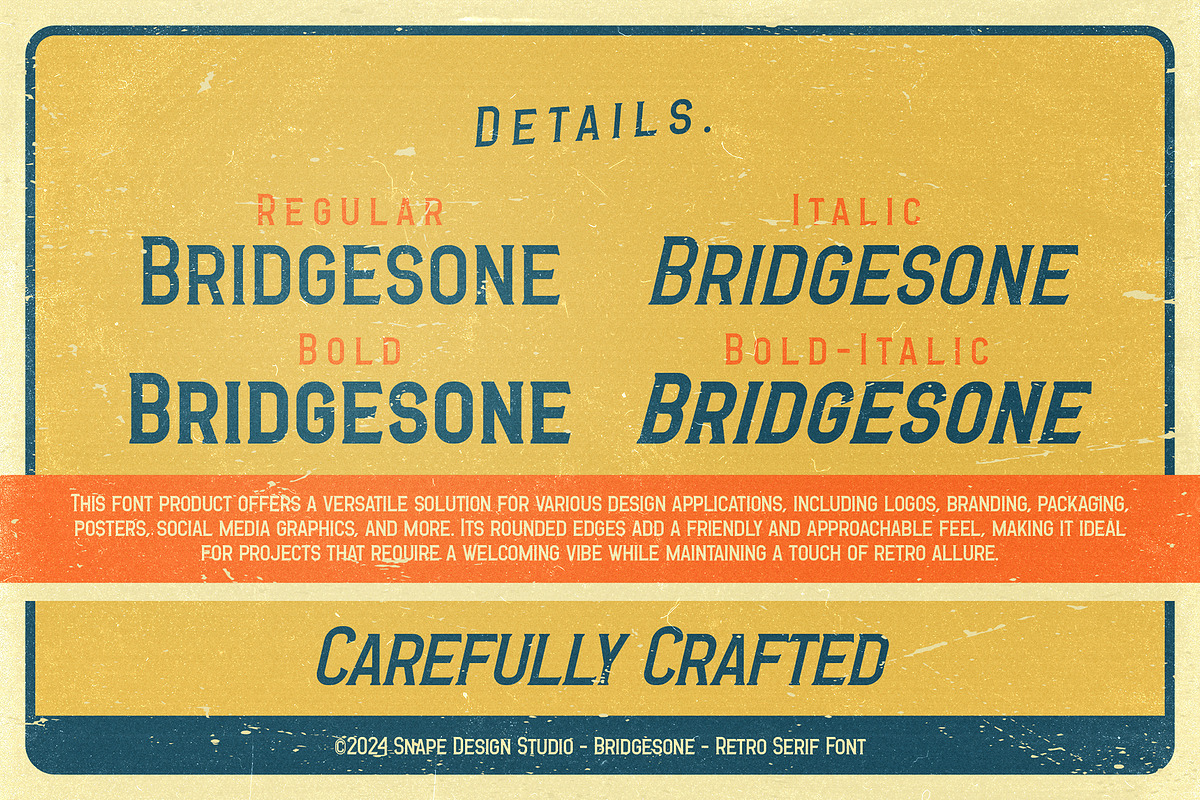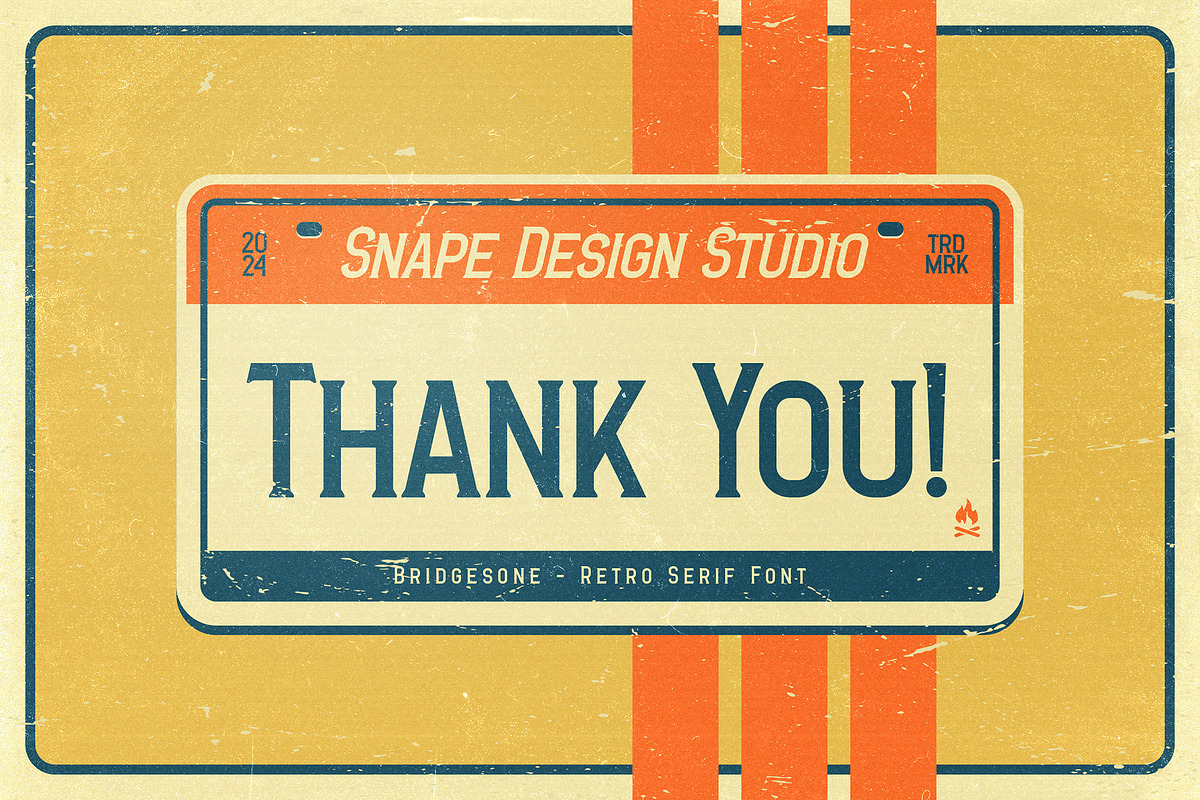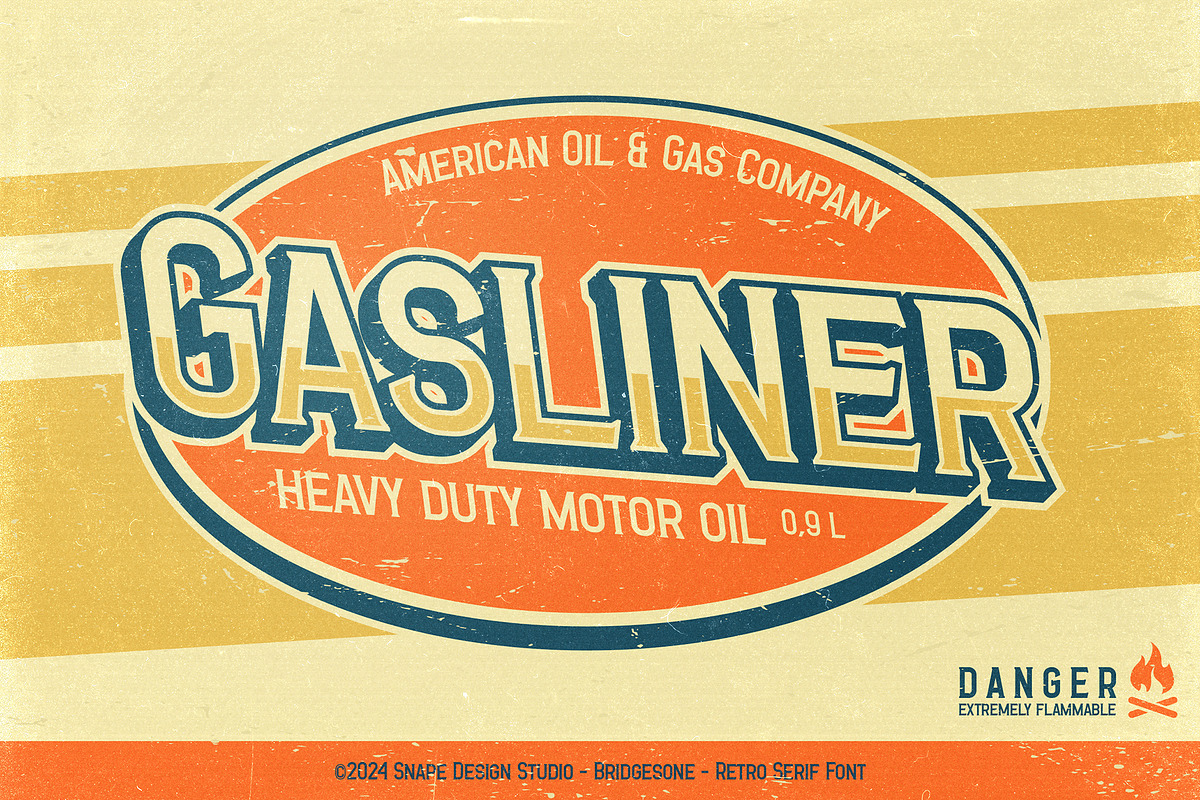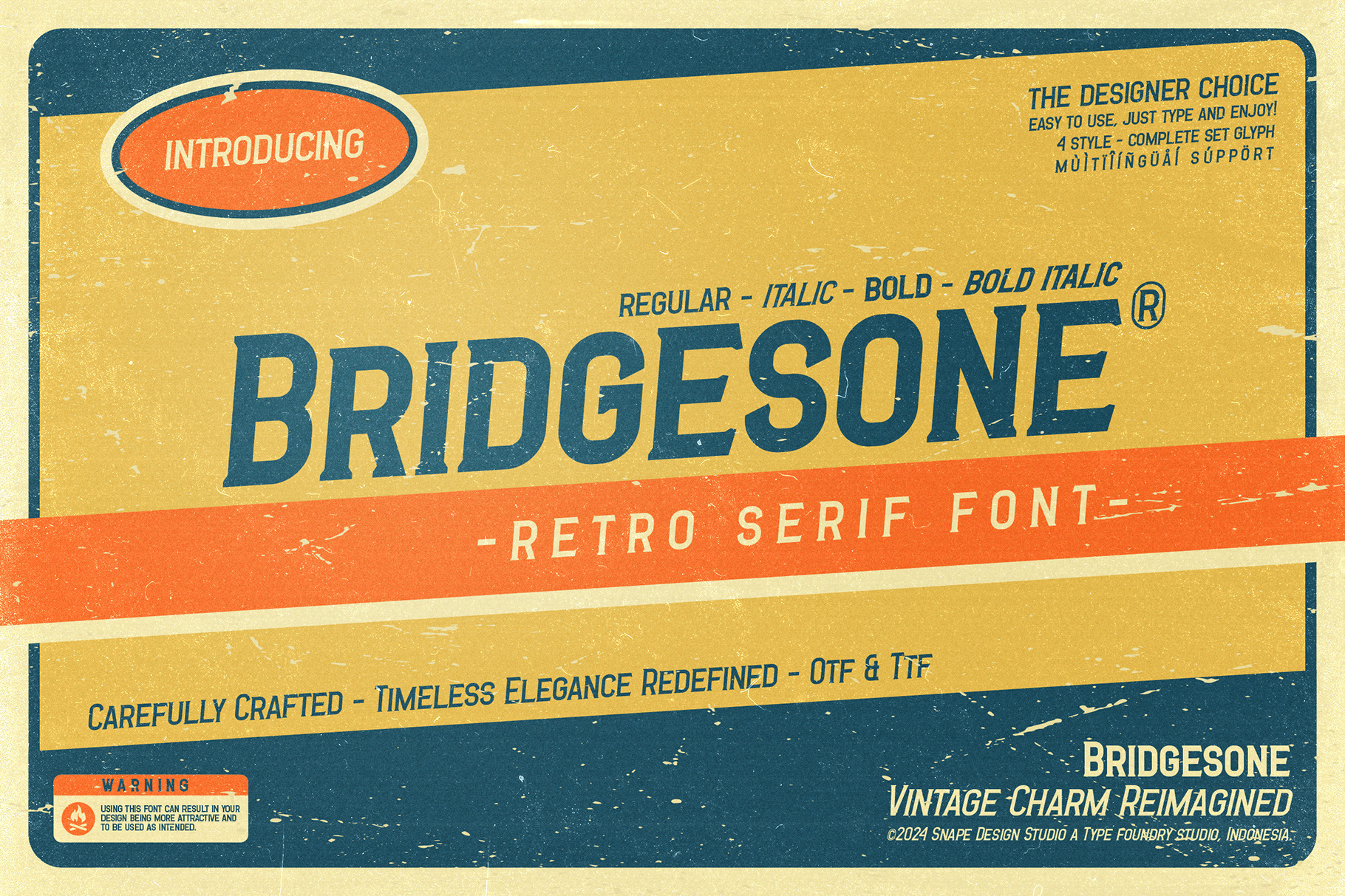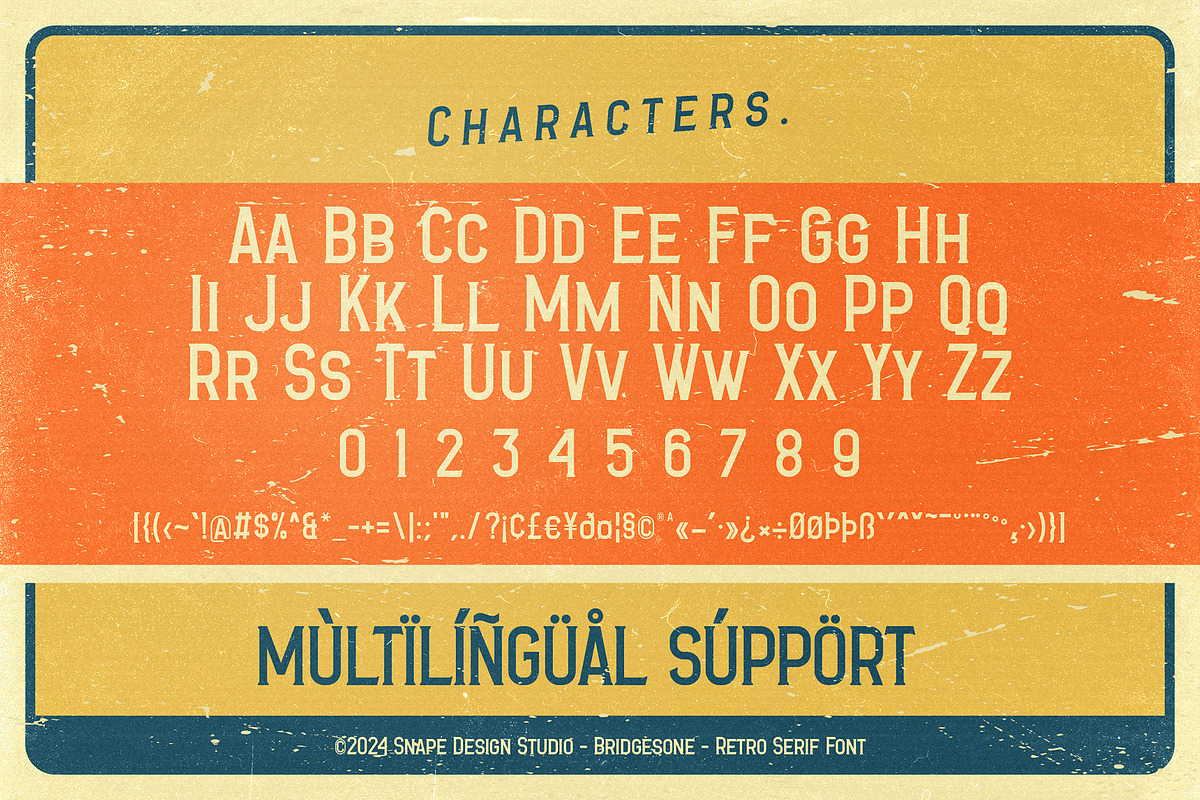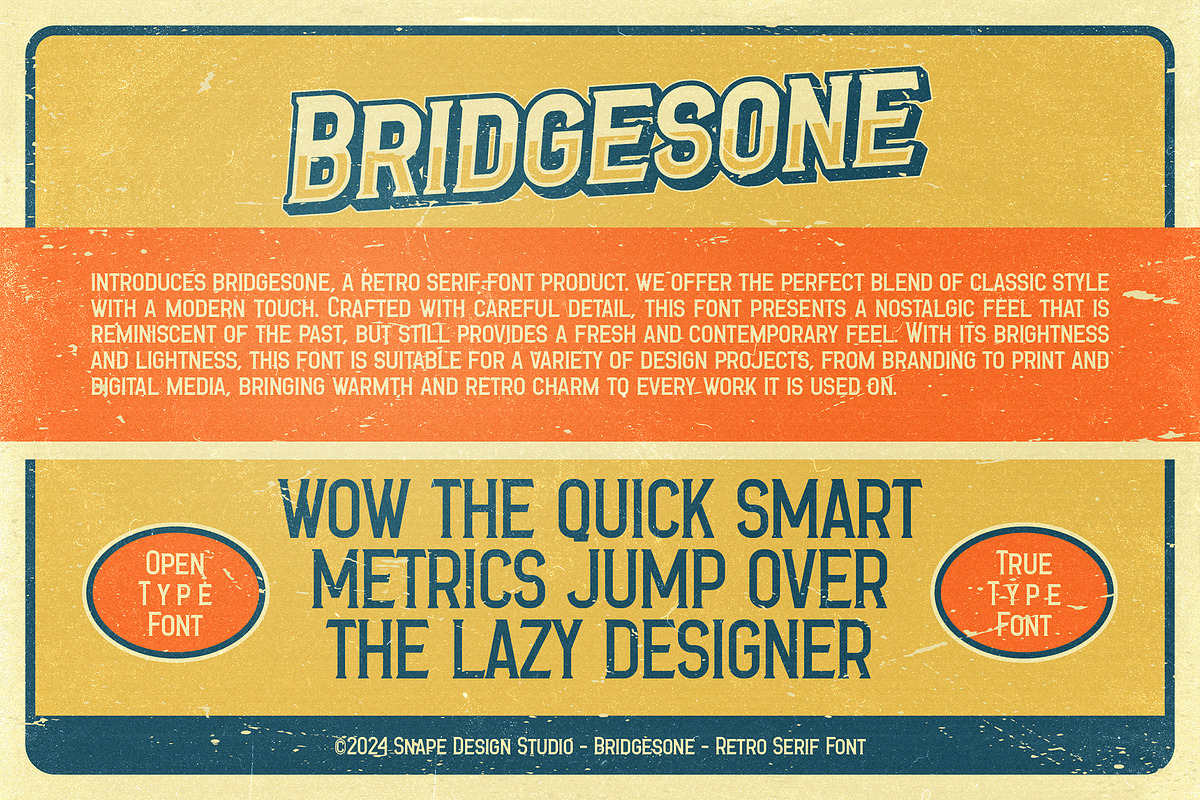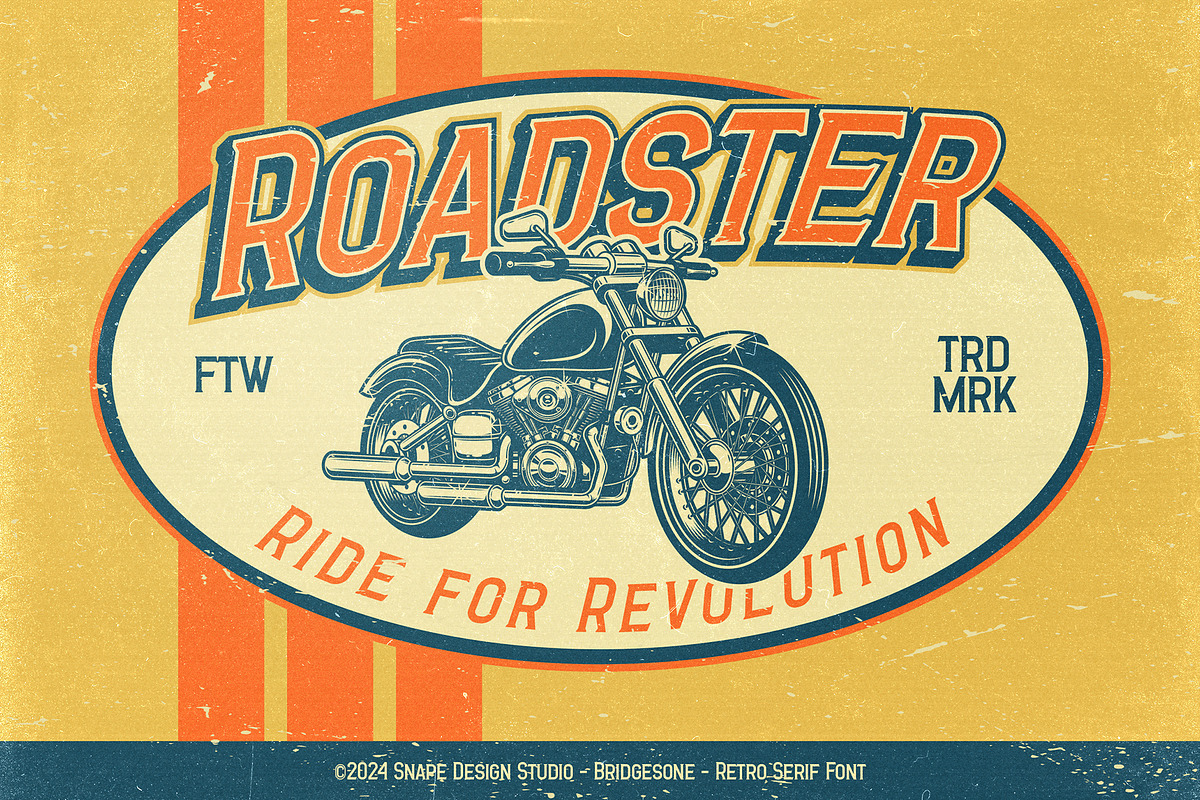
Bridgesone - Retro Serif Font
Bridgesone, a retro serif font, encapsulates timeless charm with its nostalgic design. Evoking memories of vintage typography, it blends elegance with readability, making it perfect for a variety of design projects. With Bridgesone, add a touch of classic sophistication to your creations.
FEATURES : Uppercase, Lowercase, Number, Punctuation, Multilingual
FAMILY FONT : Regular, Italic, Bold, Bold-Italic